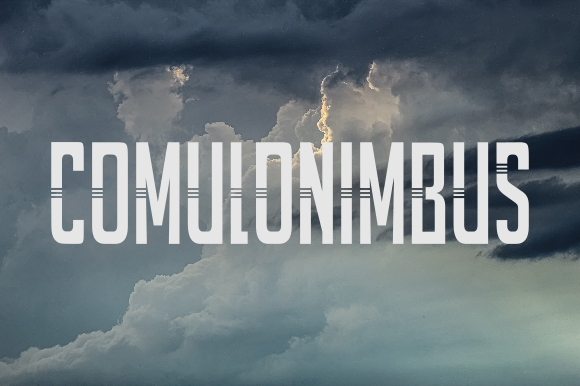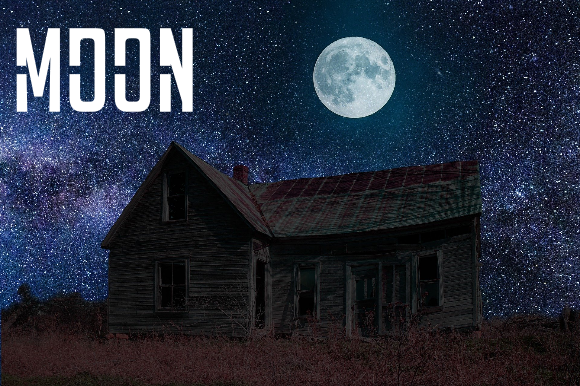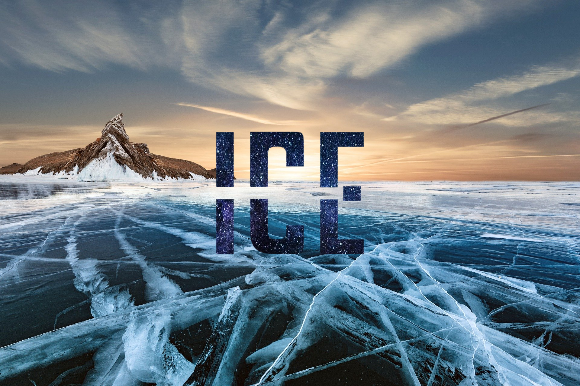
Introduction to Poster Cross Font
Poster Cross is a simple and casual sans serif font with an undeniably clean feel.
With its neat and beautiful arrangement of letters, this typeface will look outstanding in both formal and non-formal designs .
Poster Cross Font offers exceptional quality and versatility, making it a valuable addition to your design toolkit. Whether you’re creating for personal projects or commercial use, Poster Cross Font delivers professional results.